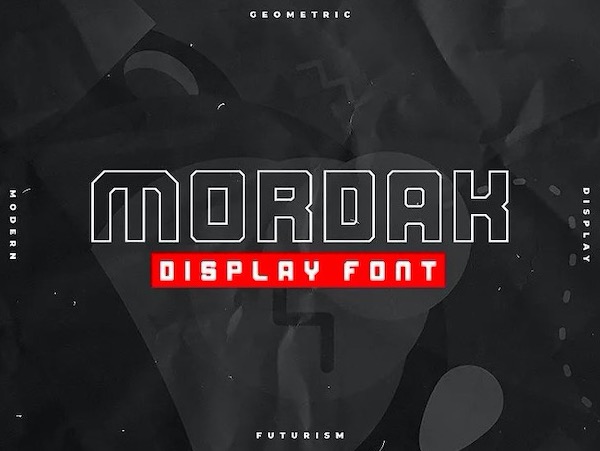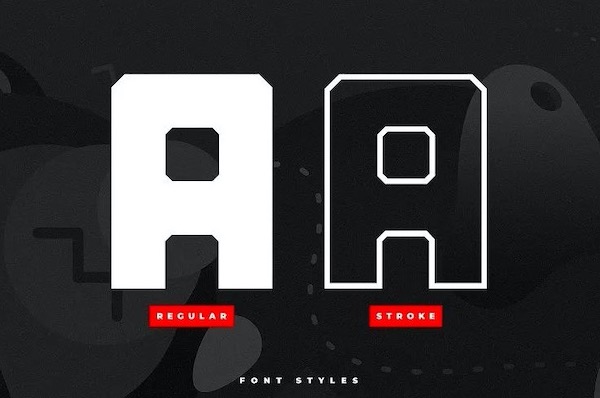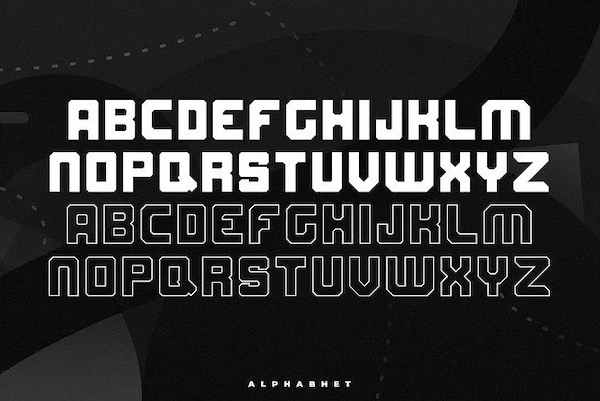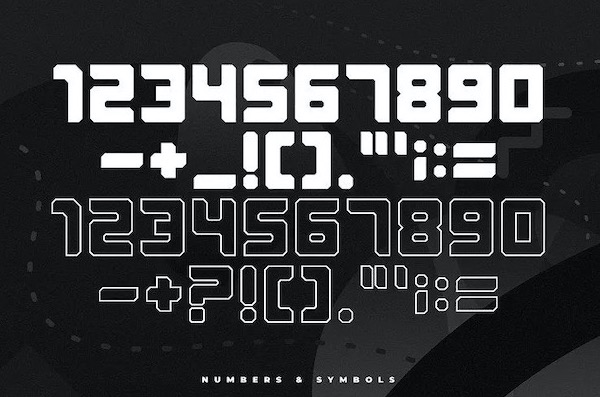
Mordak is a gothic, blackletter display font from Epoknot Design with a bold and ornate design. The letters are all uppercase and have a highly stylized appearance, with sharp, angular lines and intricate details that give the font a medieval feel. The letterforms are tightly spaced together and feature a combination of thick and thin strokes, creating a strong sense of contrast and depth. It also includes various decorative elements such as flourishes, serifs, and spikes, which add to its ornate and elaborate appearance.
Mordak would be suitable for use in various design projects such as logos, headlines, or titles that require a dramatic and historical look. This font is free for personal use and No Commercial use is Allowed!
Mordak Display Font
Designer, Publisher: Epoknot Design